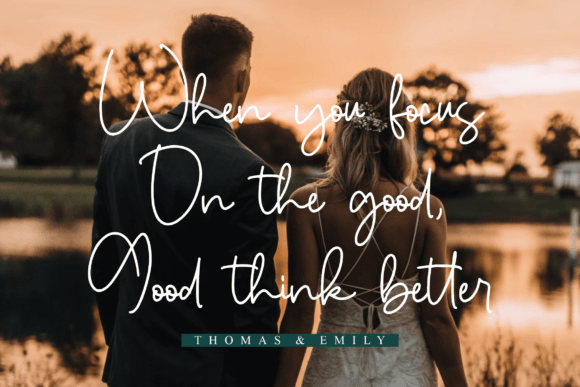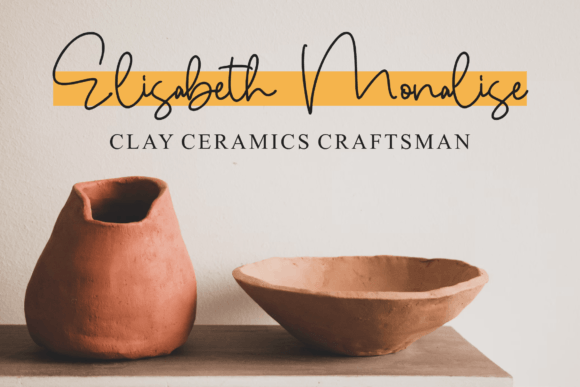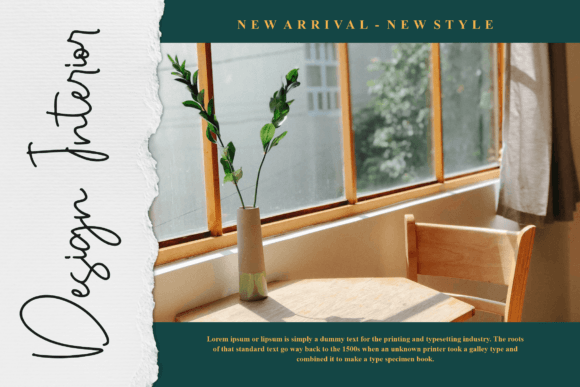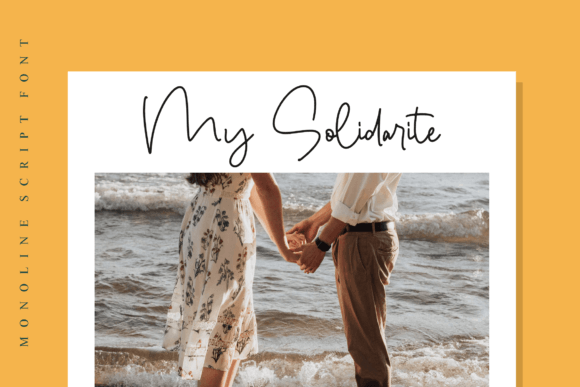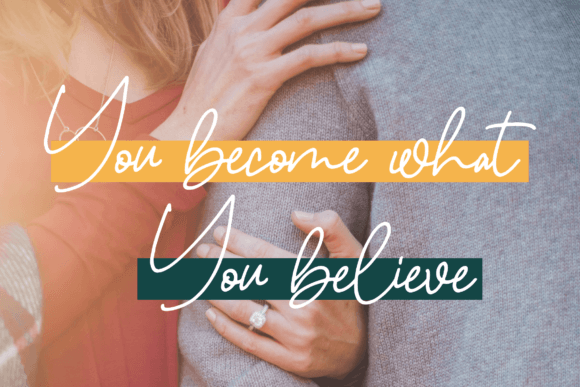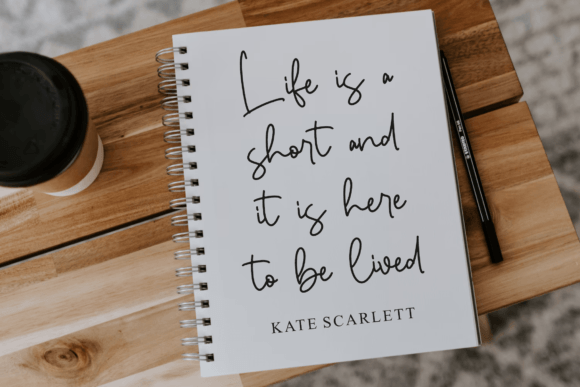
Bertalyan Font: Elevate Your Designs with a Modern Handwritten Monoline Script
In the world of typography, fonts play a crucial role in conveying the tone and personality of a design. For crafters and designers seeking a unique and stylish touch, Bertalyan Font is an excellent choice. This modern handwritten monoline script font is perfect for creating extraordinary projects that require a personalized feel. In this article, we’ll explore the features and benefits of Bertalyan Font, and how it can elevate your designs.
What is Bertalyan Font?
Bertalyan Font is a modern handwritten monoline script that exudes a natural and stylish vibe. Its clean lines and fluid strokes create a beautiful, cursive-like effect that’s perfect for a wide range of design applications. Whether you’re working on wedding invitations, thank you cards, quotes, greeting cards, logos, business cards, or any other project that requires a customized touch, Bertalyan Font is an excellent choice.
Key Features of Bertalyan Font
- Modern Handwritten Monoline Script: Bertalyan Font boasts a fresh and contemporary look, making it perfect for designers and crafters seeking a unique style.
- Natural and Stylish: The font’s natural flow and stylish appearance make it suitable for a wide range of design projects.
- Versatile: Bertalyan Font can be used on various design materials, including wedding invitations, thank you cards, quotes, greeting cards, logos, business cards, and more.
- Customized Touch: The font’s handwritten feel adds a personalized touch to any design, making it perfect for projects that require a unique and special look.
Benefits of Using Bertalyan Font
Bertalyan Font offers several benefits for designers and crafters, including:
- Unique and Eye-Catching: The font’s modern and stylish appearance makes it stand out from more traditional fonts, adding a touch of elegance and sophistication to your designs.
- Easy to Read: Despite its handwritten feel, Bertalyan Font is easy to read, making it perfect for body text and captions.
- Flexible: The font can be used in various design contexts, from digital to print, and can be easily paired with other fonts to create a unique look.
- Time-Saving: With Bertalyan Font, you can create stunning designs quickly and efficiently, saving you time and effort.
Design Ideas Using Bertalyan Font
Bertalyan Font is an incredibly versatile font that can be used in a wide range of design projects. Here are some ideas to get you started:
- Wedding Invitations: Add a touch of elegance and sophistication to your wedding invitations with Bertalyan Font.
- Thank You Cards: Create personalized thank you cards for special occasions, such as birthdays, anniversaries, and graduations.
- Quotes and Posters: Use Bertalyan Font to create inspiring quotes and posters that showcase your favorite sayings and phrases.
- Greeting Cards: Design beautiful greeting cards for holidays, birthdays, and other special occasions.
- Logos and Branding: Use Bertalyan Font to create unique and memorable logos and branding materials for your business or personal projects.
Bertalyan Font is a modern handwritten monoline script that’s perfect for designers and crafters seeking a unique and stylish touch. Its natural flow, stylish appearance, and versatility make it suitable for a wide range of design projects. With Bertalyan Font, you can create stunning designs that showcase your creativity and personality. Whether you’re working on wedding invitations, thank you cards, quotes, greeting cards, logos, business cards, or any other project, Bertalyan Font is an excellent choice.